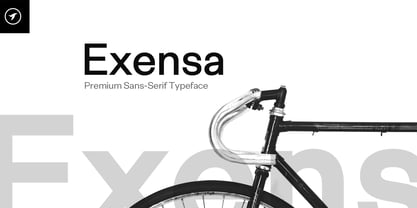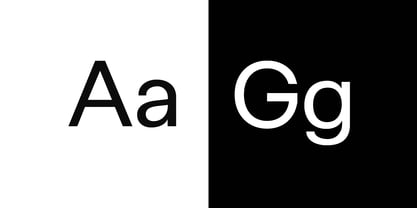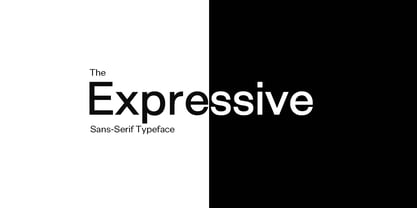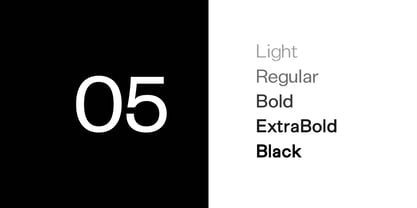
Exensa Grotesk
by Designova
The Exensa Grotesk Font Family was designed by Jean Johnson and published by Designova. Exensa Grotesk contains 10 styles and family package options. More about this family
Exensa Grotesk is an authentic Sans Serif typeface inspired by Swiss Design and some of the world's most elegant typefaces that keep the expressive nature of a premium font at its level best. Extensa Grotesk will be best suited to create nicely looking headlines as well as page content. It is your best choice of sans-serif font for your next project.
Designers: Jean Johnson
Foundry: Designova